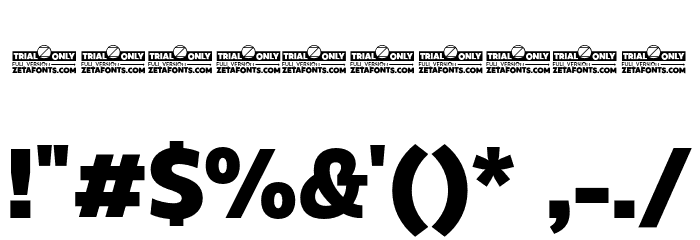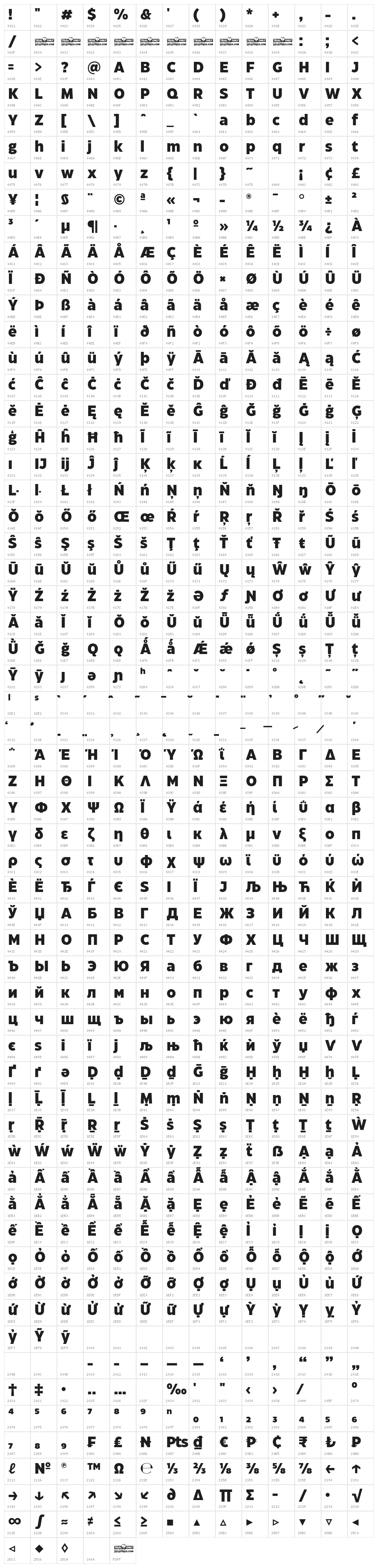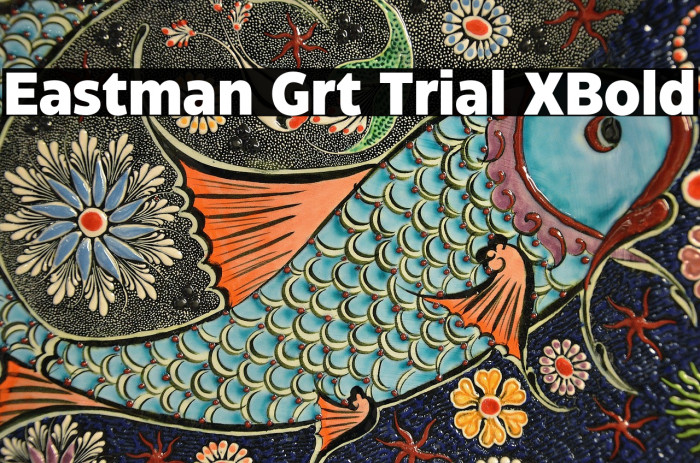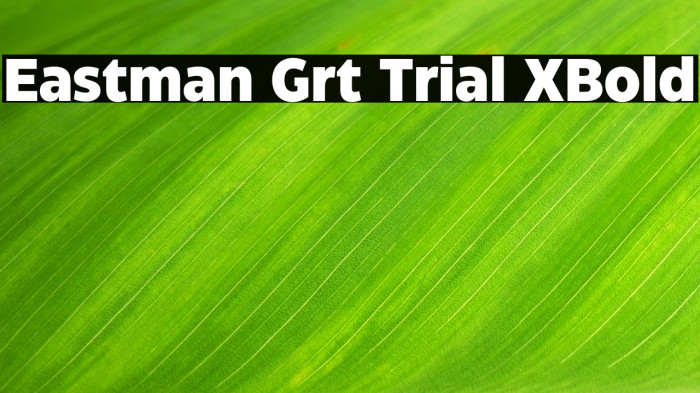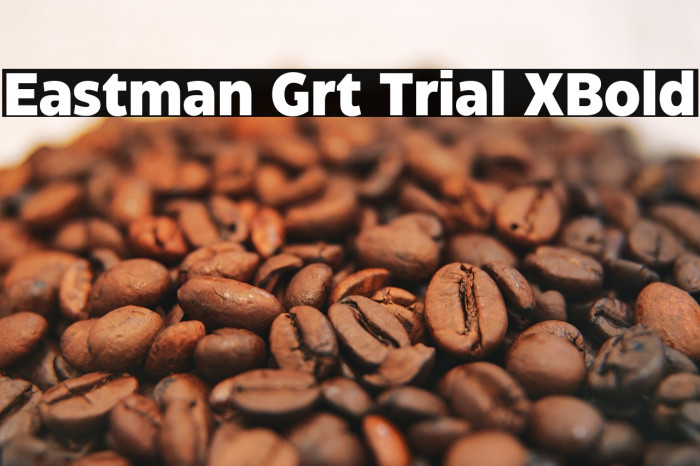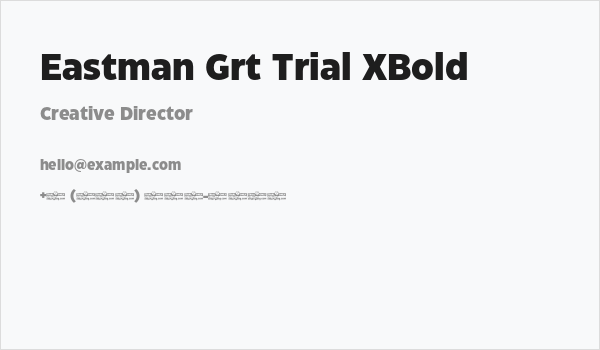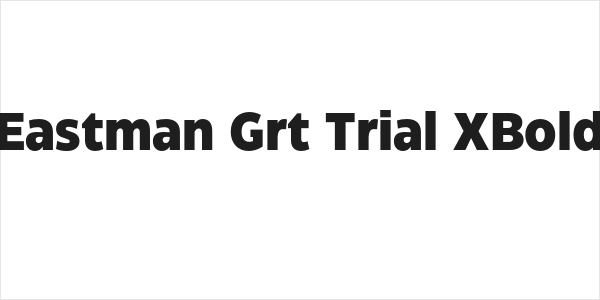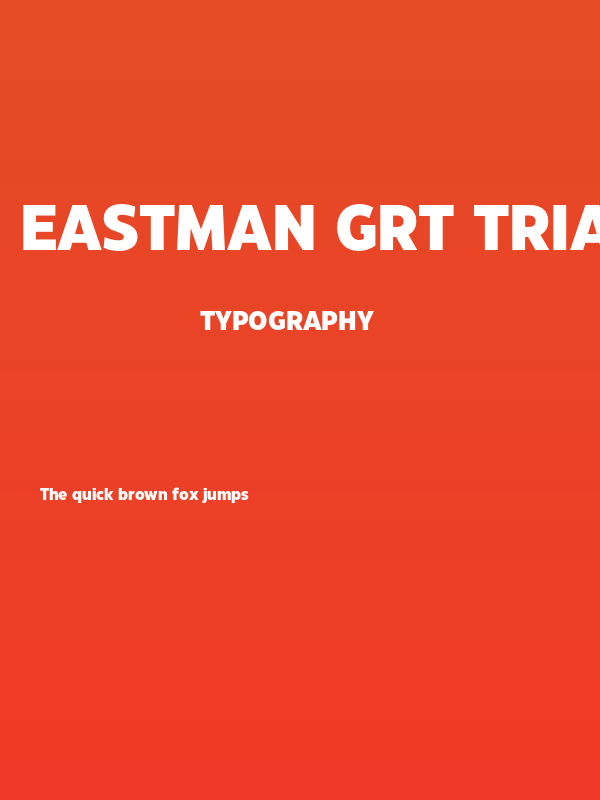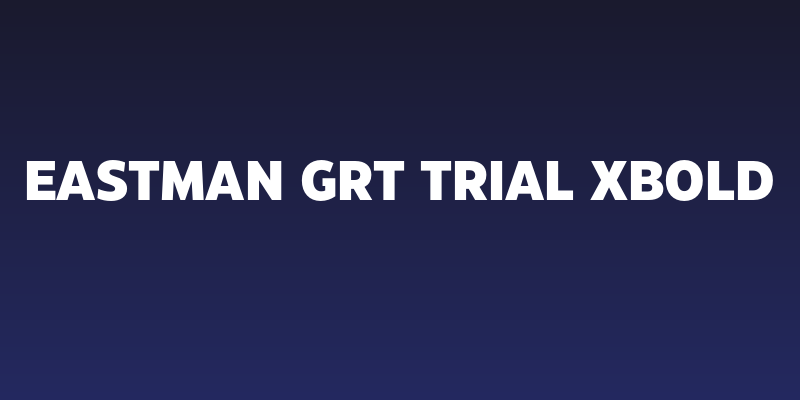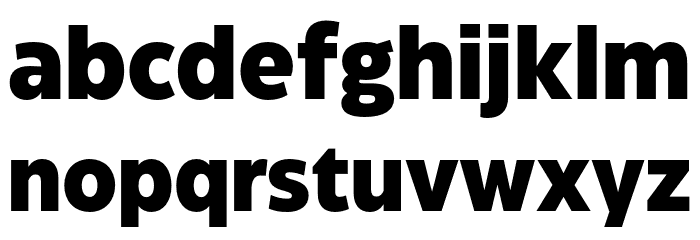
Eastman Grt Trial XBold Font
Eastman Grt Trial XBold Description
This font exhibits a bold and assertive style, characterized by thick, uniform strokes that convey strength and stability. The uppercase and lowercase letters are well-proportioned, with a consistent weight throughout. The characters are designed with a modern aesthetic, featuring clean lines and a straightforward appearance. The numerals and special characters maintain the same boldness, ensuring a cohesive look across all text elements. This font is highly legible, making it suitable for various applications where clarity and impact are essential.